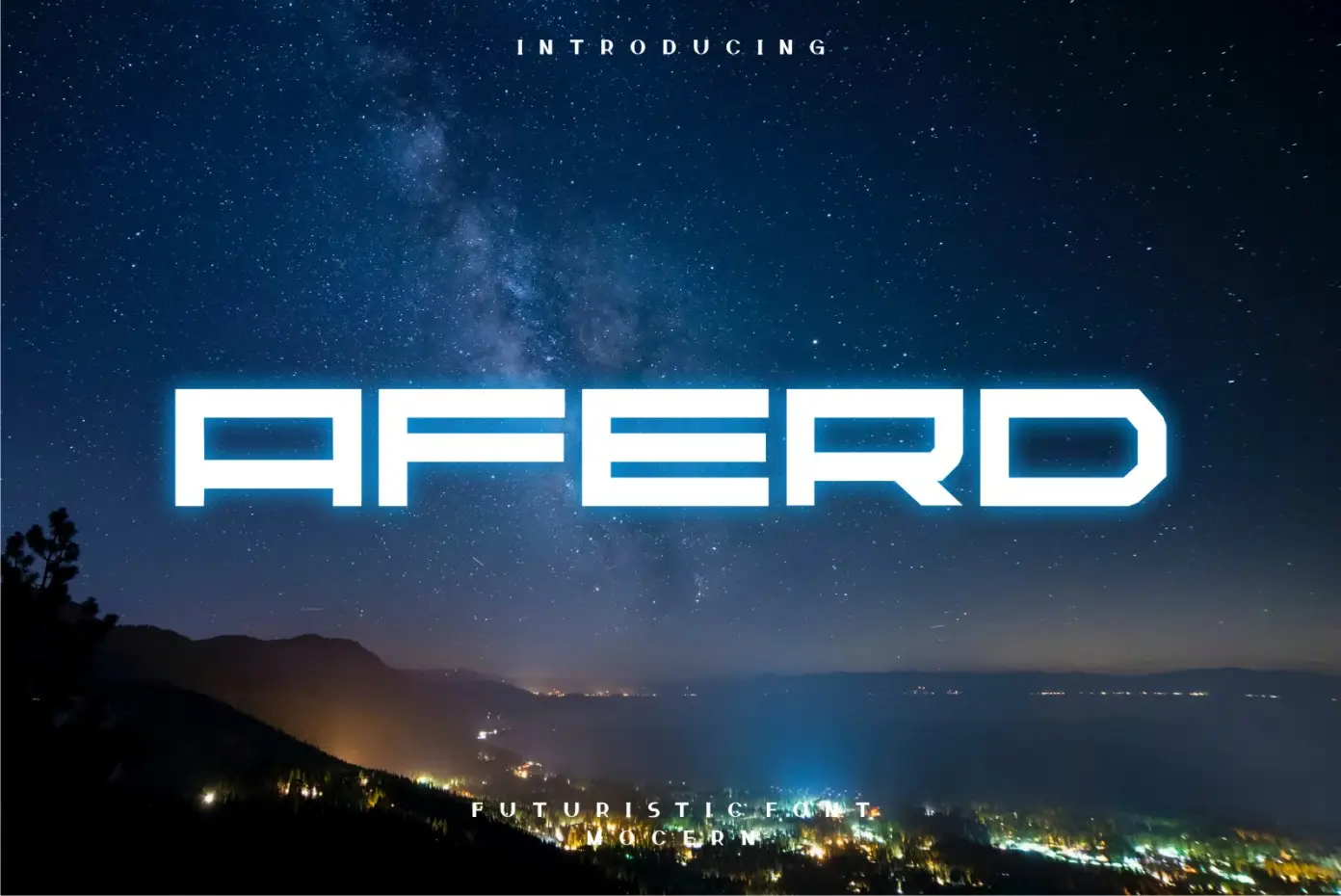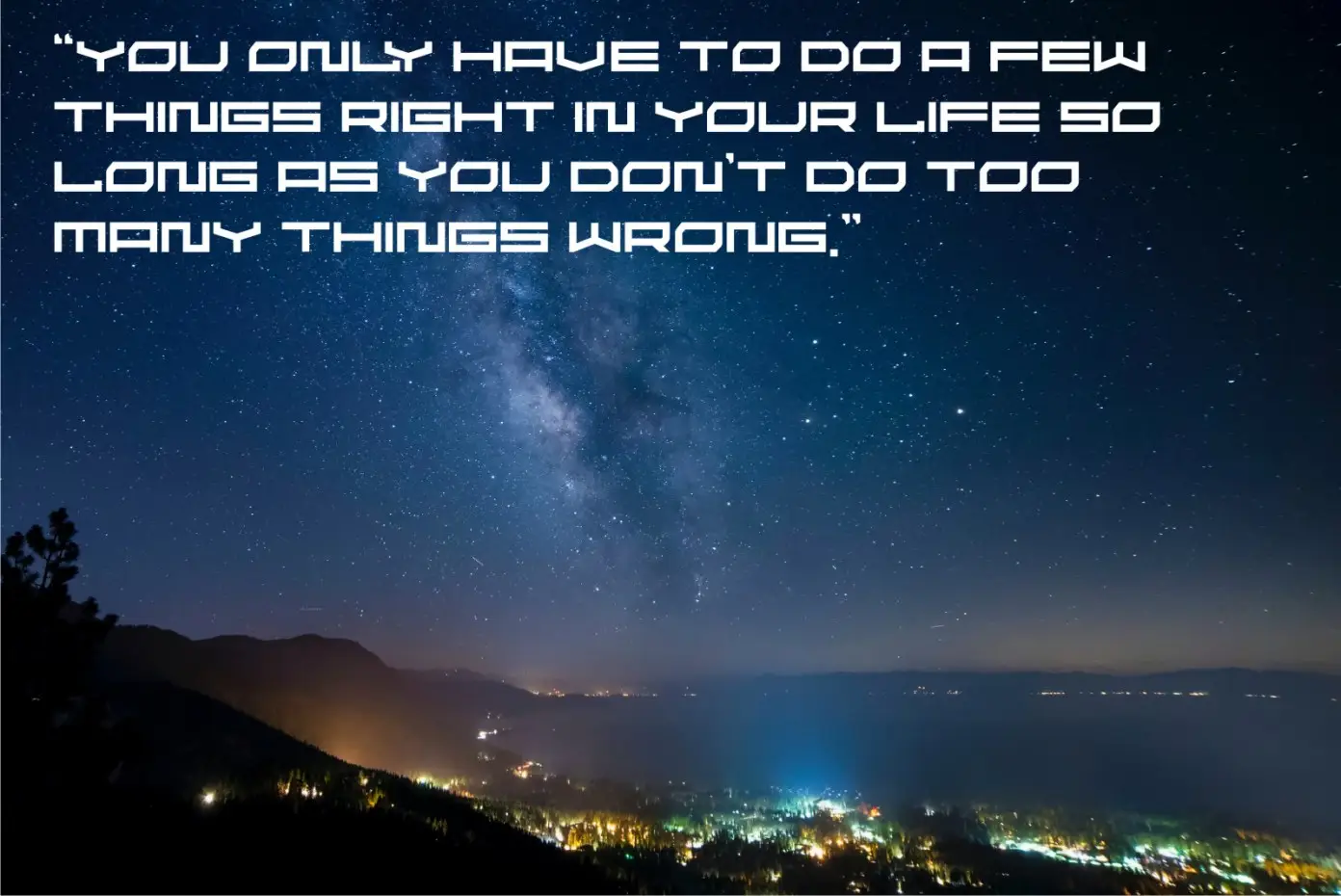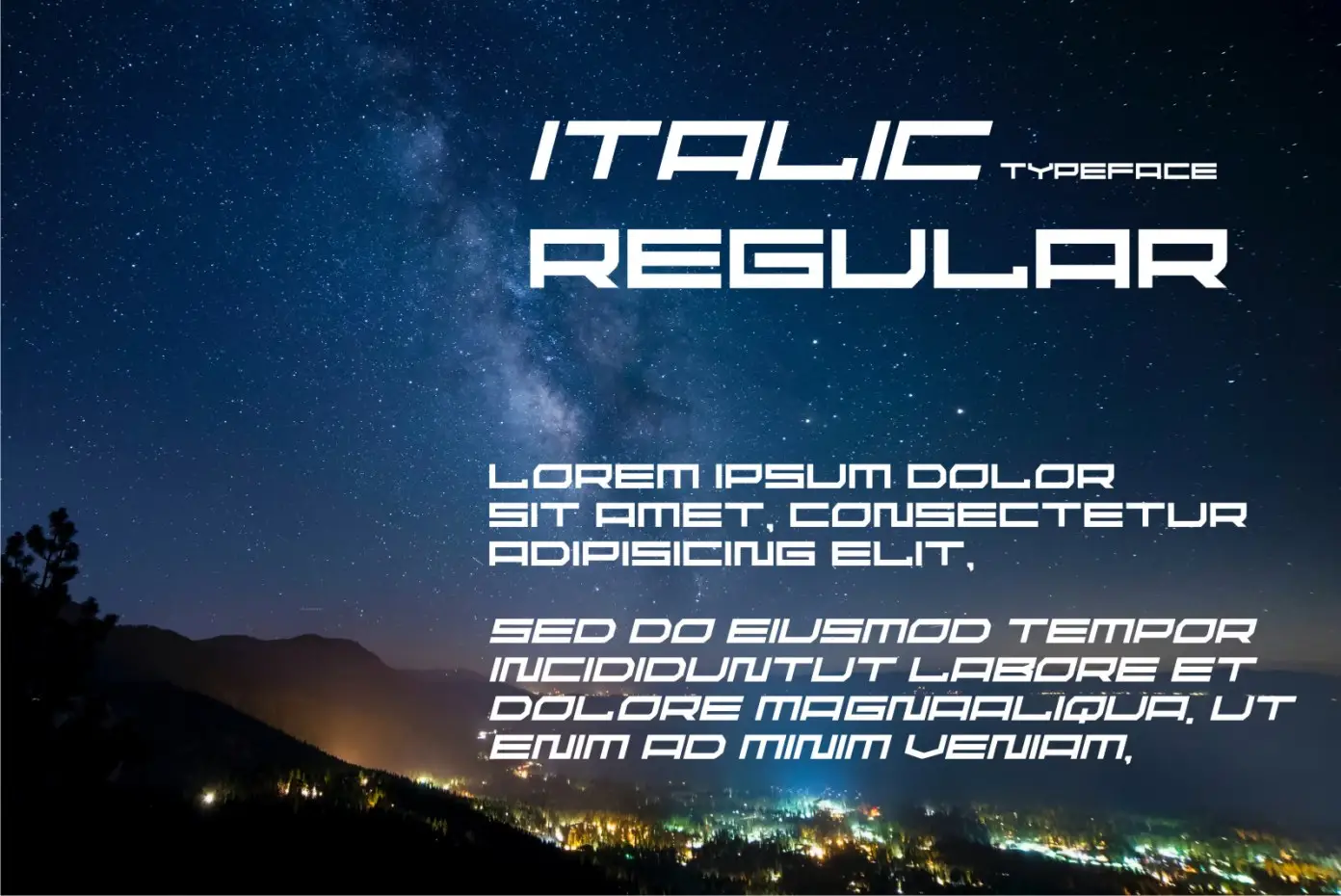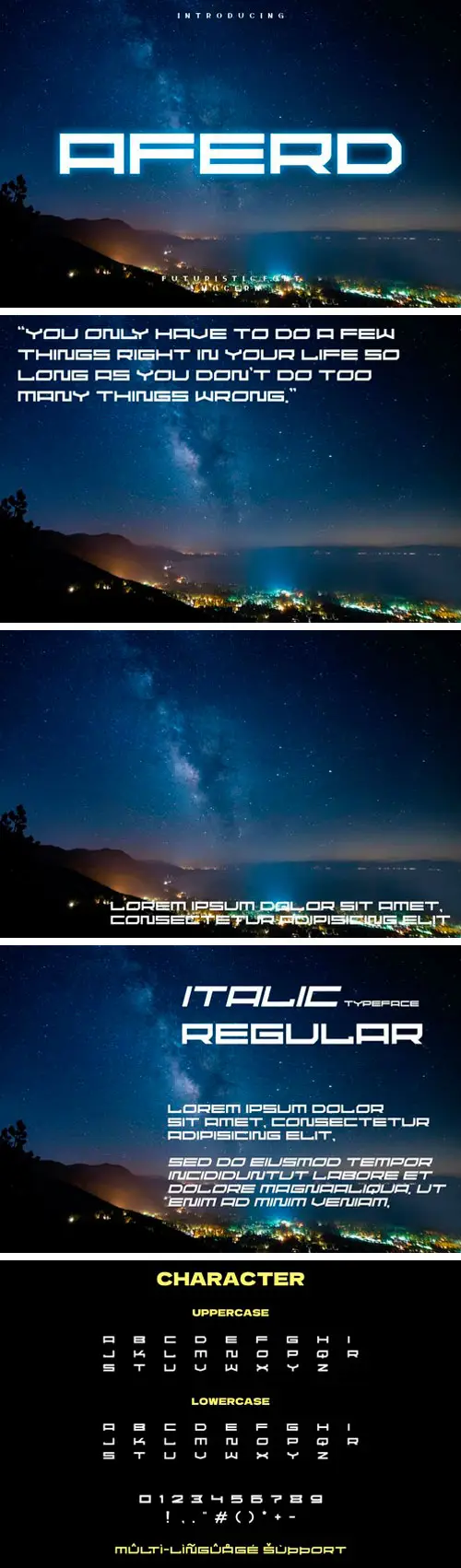
Aferd Font
The Aferd Font is a versatile typeface designed to elevate your projects with its unique style. This font family includes multiple weights, allowing for a range of design applications from bold headlines to elegant body text.
• Multiple weights for flexibility
• Clean and modern design
• Highly legible in various sizes
This font is ideal for branding, logos, web design, and print materials. Its contemporary aesthetic makes it suitable for both professional and creative projects.